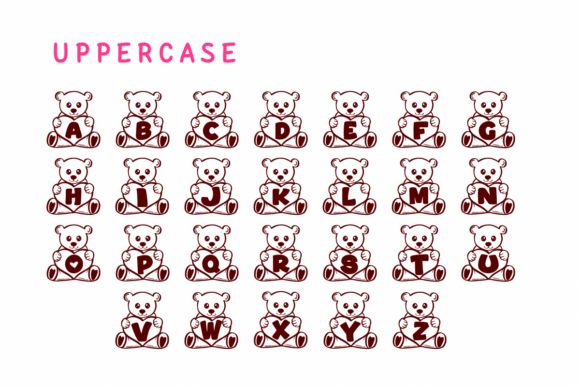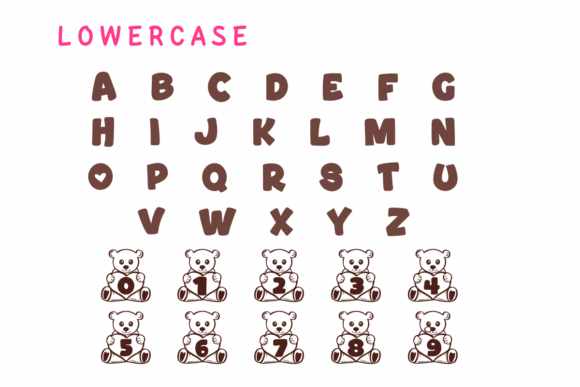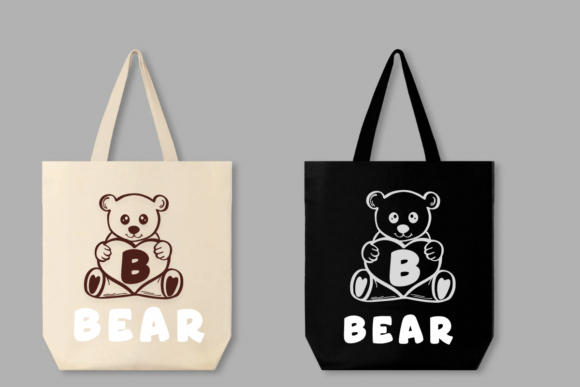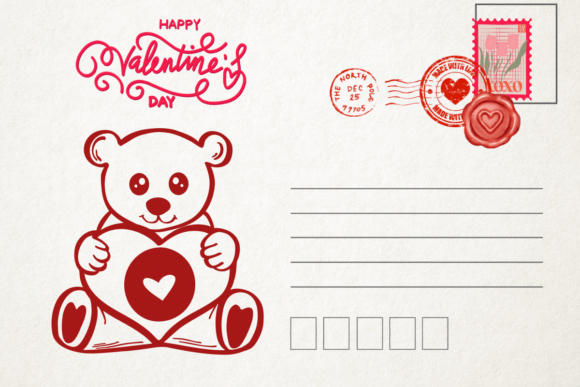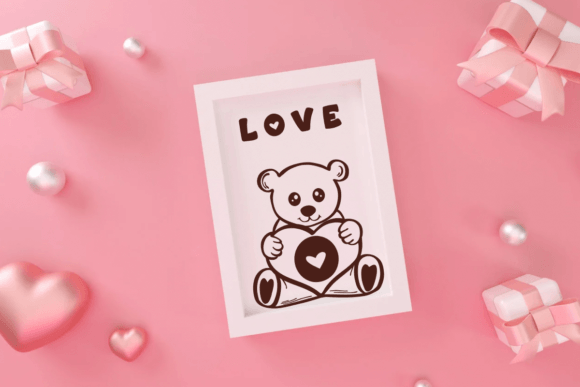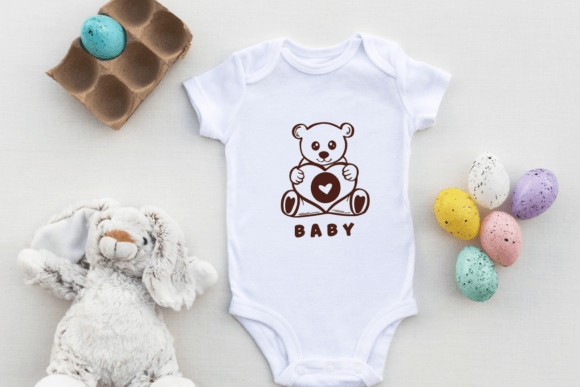
Cute Cartoon Bear Font: Add a Touch of Whimsy to Your Designs
Are you looking for a font that can add a dash of cuteness to your designs? Look no further than the Cute Cartoon Bear Font! This adorable decorative font is perfect for a variety of projects, from personal notes and diaries to professional designs and crafts. In this article, we’ll explore the features and uses of the Cute Cartoon Bear Font, and how it can elevate your designs to the next level.
What is Cute Cartoon Bear Font?
Cute Cartoon Bear Font is a unique and playful font that features cute cartoon bear designs. The font is carefully crafted to bring a smile to your face, with its endearing bear characters and whimsical feel. It’s an excellent choice for anyone who wants to add a touch of fun and personality to their designs.
Uses of Cute Cartoon Bear Font
This versatile font can be used for a wide range of projects, including:
- Note-taking and journaling: Add a personal touch to your notes and diary entries with the Cute Cartoon Bear Font. It’s perfect for bullet journaling, and scrapbooking.
- Greeting cards and invitations: Create adorable greeting cards, invitations, and party decorations with this font. It’s ideal for birthdays, holidays, and special occasions.
- Designs and crafts: Use the Cute Cartoon Bear Font to create eye-catching designs for banners, posters, mugs, cards, shirts, and stationery.
- Social media posts: Add a touch of whimsy to your social media posts, including Instagram captions, Facebook posts, and Twitter updates.
Benefits of Using Cute Cartoon Bear Font
The Cute Cartoon Bear Font offers several benefits, including:
- Unique and playful design: The font’s cute cartoon bear design is sure to grab attention and add a touch of personality to your projects.
- Versatility: The font can be used for a wide range of projects, from personal to professional.
- Easy to read: Despite its playful design, the font is easy to read and understand, making it perfect for body text and headings.
Tips for Using Cute Cartoon Bear Font
Here are some tips for getting the most out of the Cute Cartoon Bear Font:
- Pair with complementary fonts: Pair the Cute Cartoon Bear Font with complementary fonts to create visual interest and hierarchy.
- Use for headings and titles: Use the font for headings and titles to add a touch of whimsy and personality to your designs.
- Experiment with colors and textures: Experiment with different colors and textures to add depth and visual interest to your designs.
The Cute Cartoon Bear Font is a versatile and playful font that’s perfect for designers, crafters, and anyone looking to add a touch of whimsy to their projects. With its unique design, versatility, and ease of use, this font is sure to become a favorite in your design arsenal. So why not give it a try and see how it can elevate your designs to the next level?